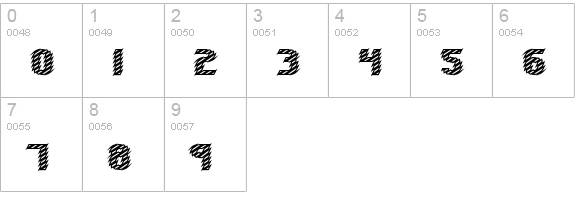
Volatile 2 BRK Font Details
Volatile 2 BRK font is a striking and dynamic typeface that effortlessly captures attention with its bold and edgy design. This font exudes a sense of energy and power, making it perfect for projects that require a strong and impactful visual presence. The sharp and angular letterforms of Volatile 2 BRK create a sense of movement, adding a touch of excitement and drama to any design. With its unique combination of sleek lines and rugged edges, Volatile 2 BRK font is versatile and adaptable, suitable for a wide range of creative projects. Whether it's for branding, advertising, posters, or headlines, this font is sure to make a lasting impression. One of the best aspects of Volatile 2 BRK font is that it is freely available to download at FontsMarket.com. This means that designers and creatives can easily access this bold and captivating typeface without any cost. Its availability as a free font allows for greater accessibility and opens up endless possibilities for designers to explore and experiment with their creative visions. Volatile 2 BRK font is not just visually striking, but also highly legible, ensuring that your message is conveyed with clarity and impact. Its strong presence on both digital and print media makes it a reliable choice for any design project. Additionally, the font supports a wide range of languages, making it accessible to a global audience. In conclusion, Volatile 2 BRK font is a stunning and attention-grabbing typeface that is freely available to download at FontsMarket.com. Its bold and energetic design, combined with its versatility and legibility, make it a fantastic choice for designers who want to make a powerful statement. So why wait? Download Volatile 2 BRK font today and unleash your creativity!